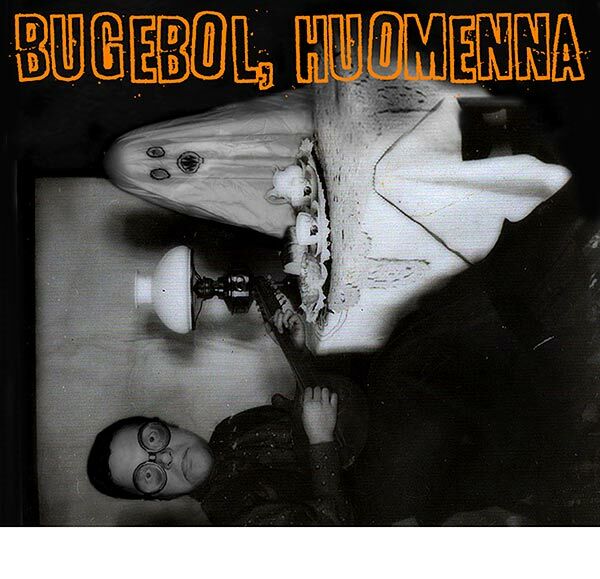
Bugebol Huomenna by Junkohanhero is a free outlined and eroded display font with the blunt force of hand-cut poster lettering. Its tall, tightly packed capitals have uneven widths, wavering edges, and open interiors that keep the forms raw rather than polished. The distressed gaps feel genuinely unruly.
On merchandise, the rough contours can turn a band name into part of the printed artwork, and the same abrasive treatment suits concert posters and independent record packaging. Its battered, improvised surface is especially convincing for punk, garage rock, and underground sports graphics, where lettering is expected to look stamped, scraped, or repeatedly photocopied.